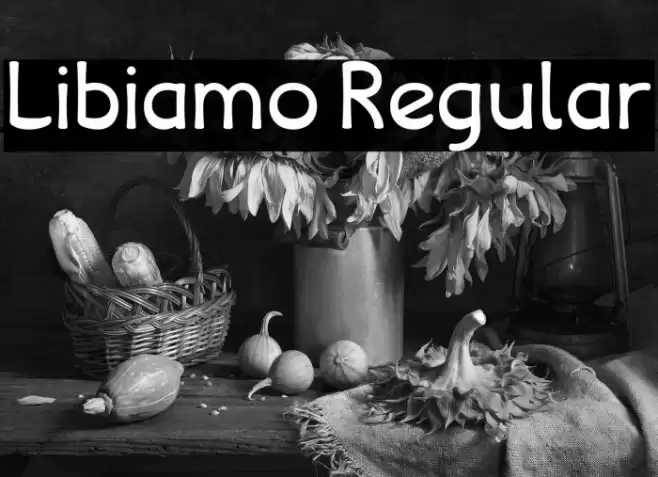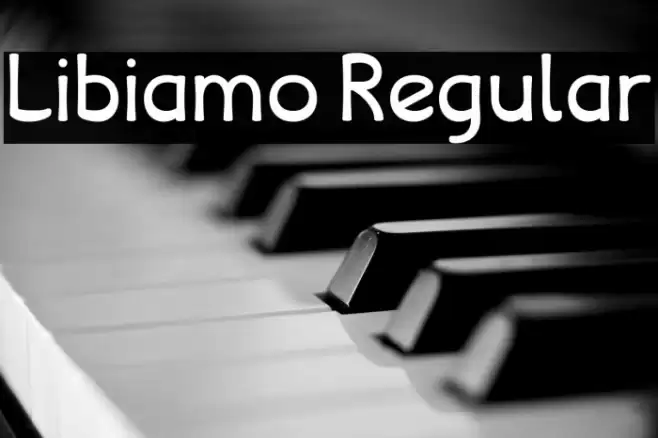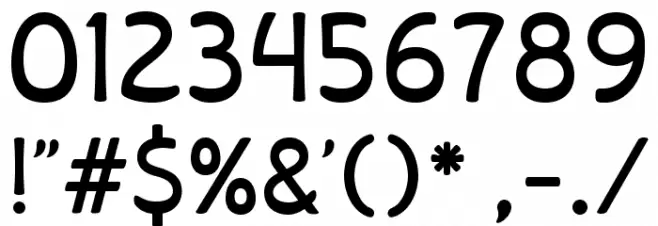
Libiamo Regular Font
Libiamo Regular Description
This font features a playful and rounded design, characterized by its smooth curves and friendly appearance. The letters are evenly spaced with a consistent stroke width, giving it a clean and approachable look. The uppercase letters maintain a uniform height, while the lowercase letters have a slightly more relaxed and informal style. The numerals are clear and easy to read, complementing the overall aesthetic. Special characters are well-integrated, maintaining the font's cohesive style. This font is versatile, suitable for both digital and print media, and can add a touch of warmth and personality to any project.
A playful, rounded font with smooth curves and a friendly appearance from Regular fonts.
- Proposed Projects: Ideal for children's books, educational materials, casual branding, and friendly user interfaces.